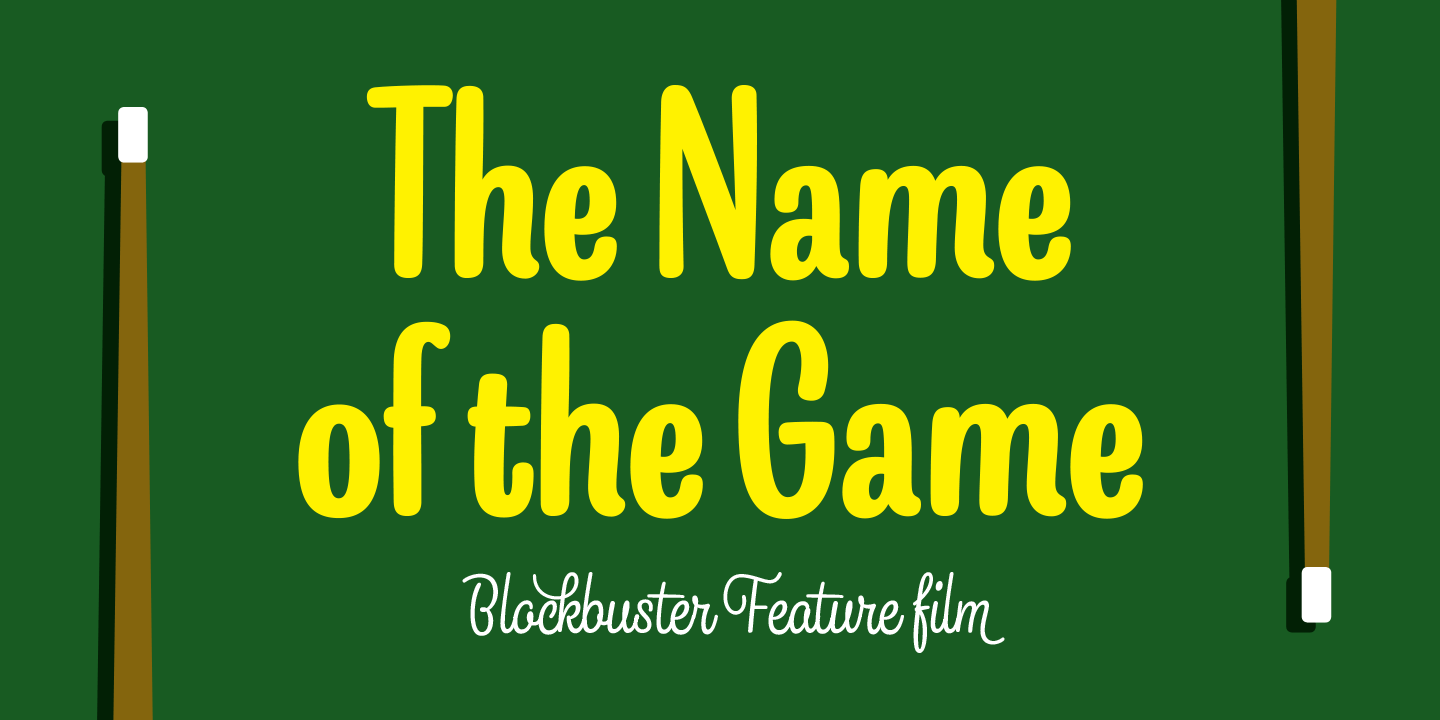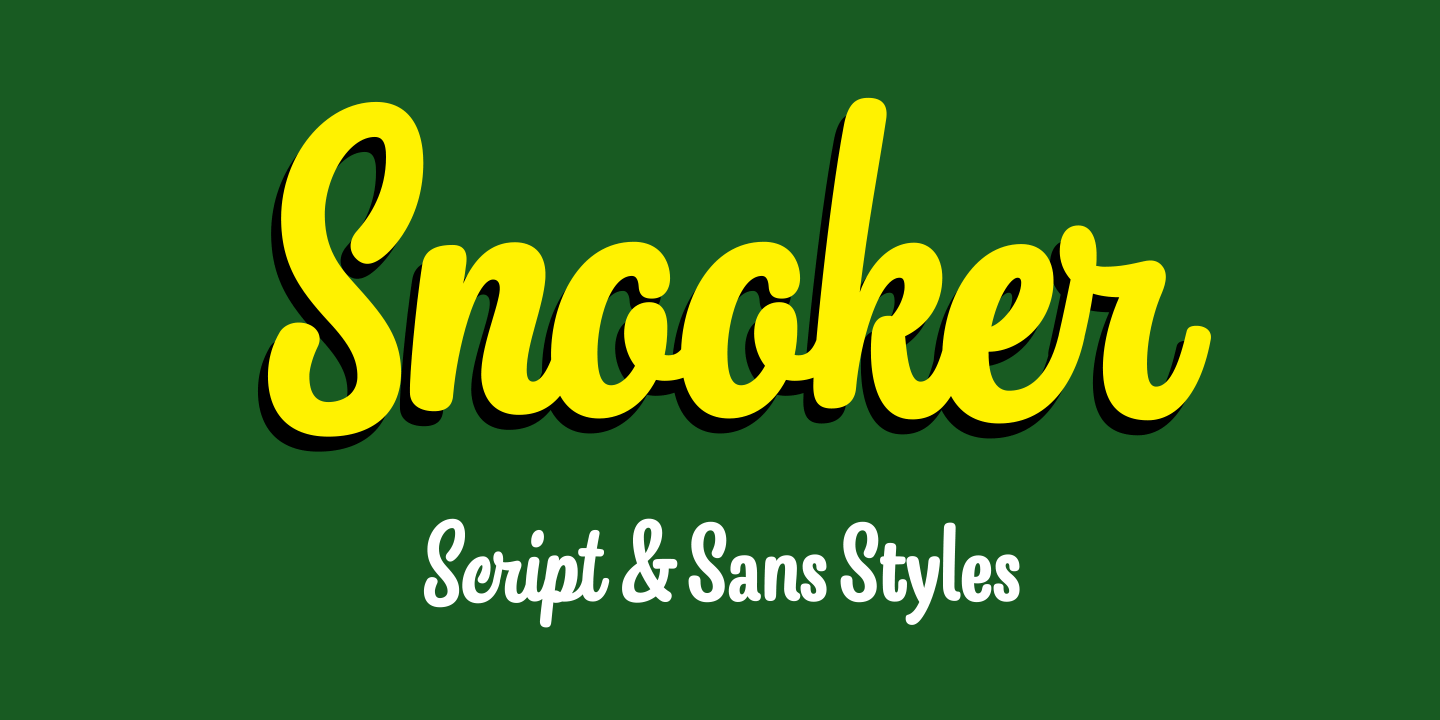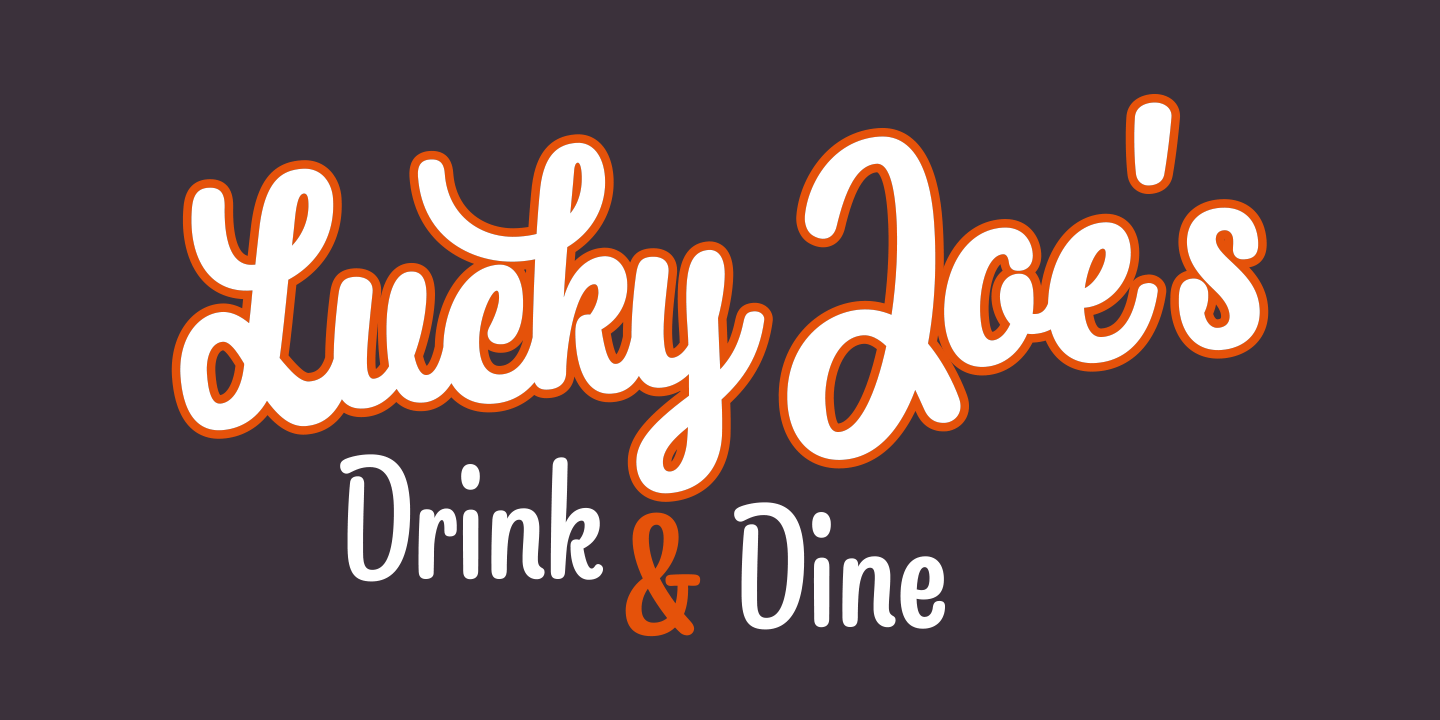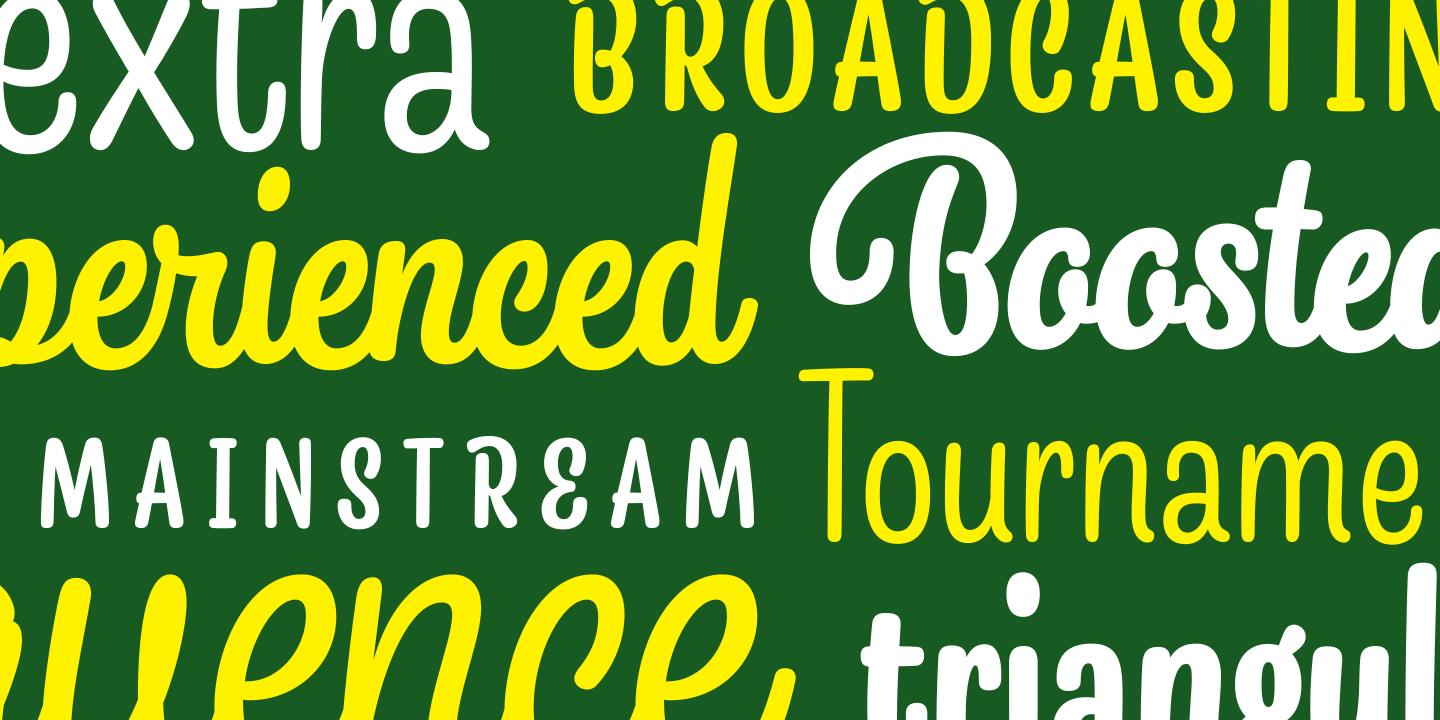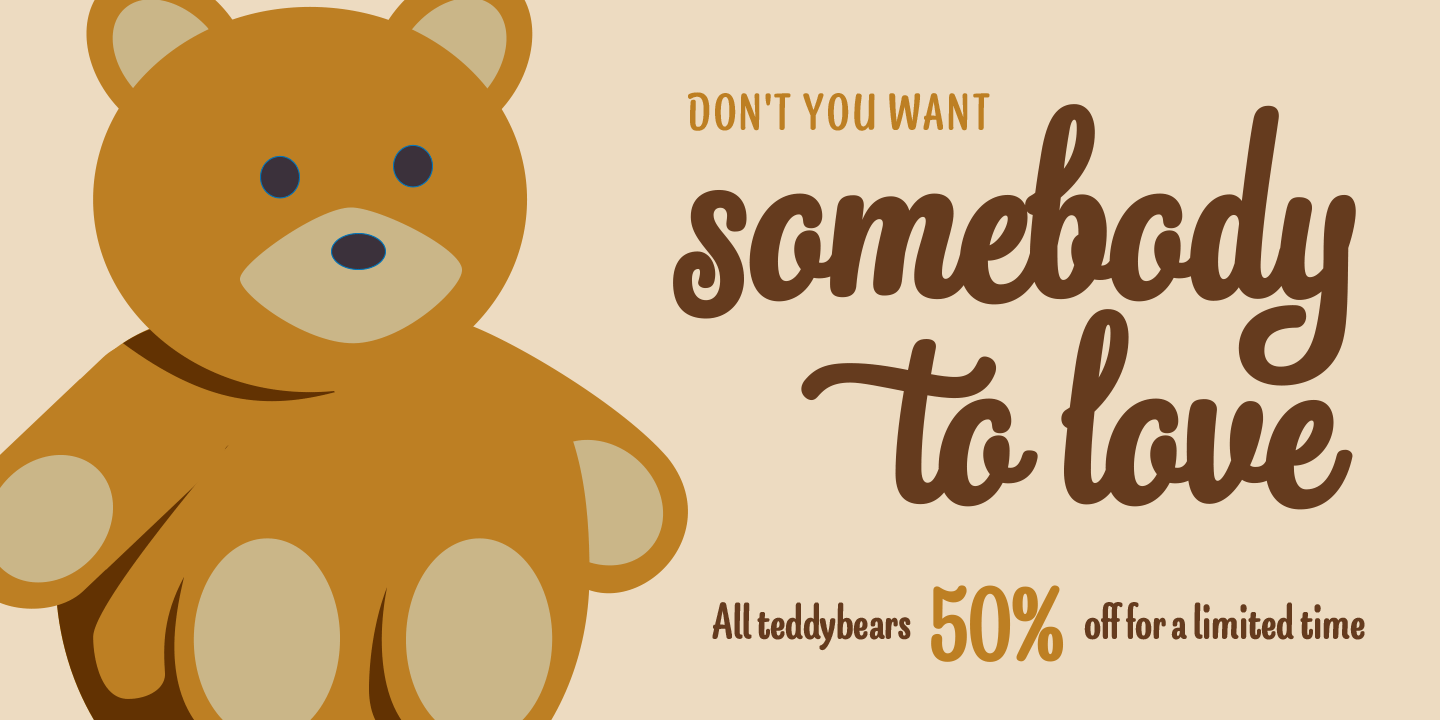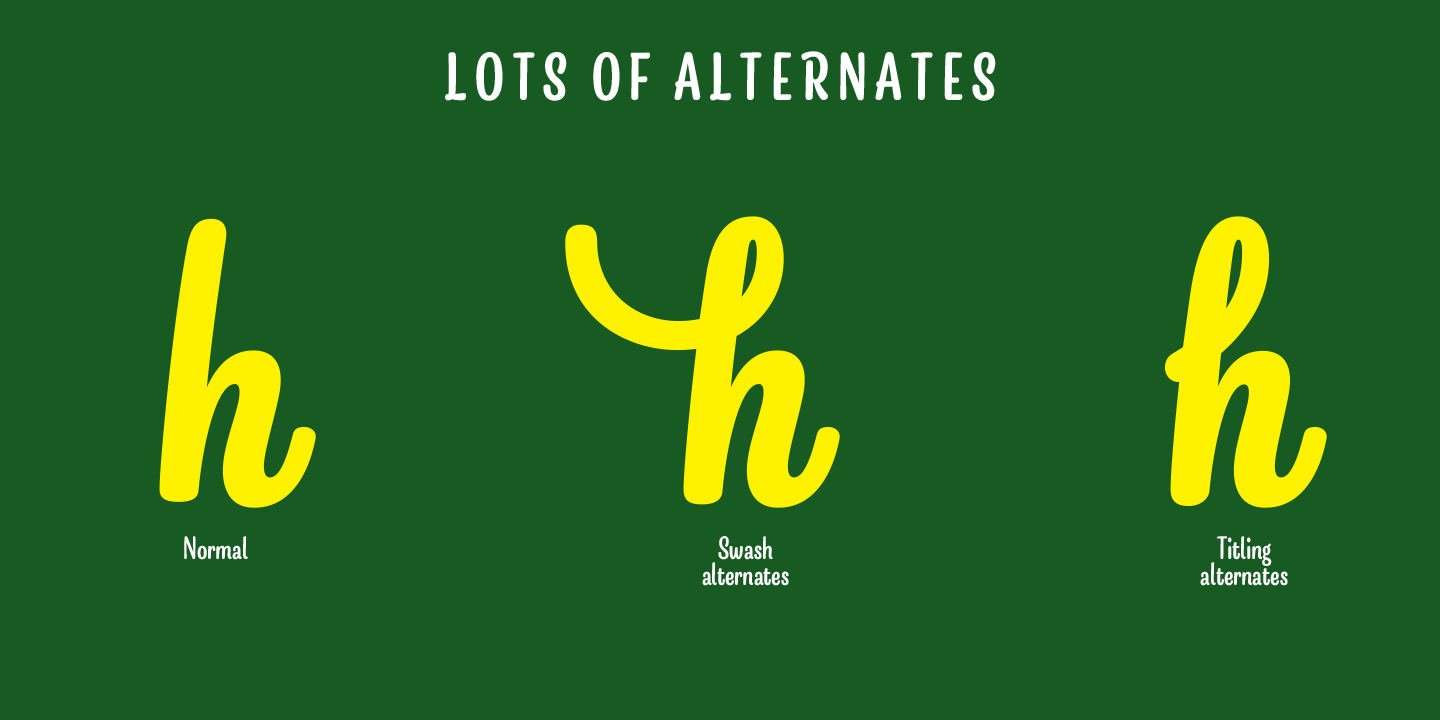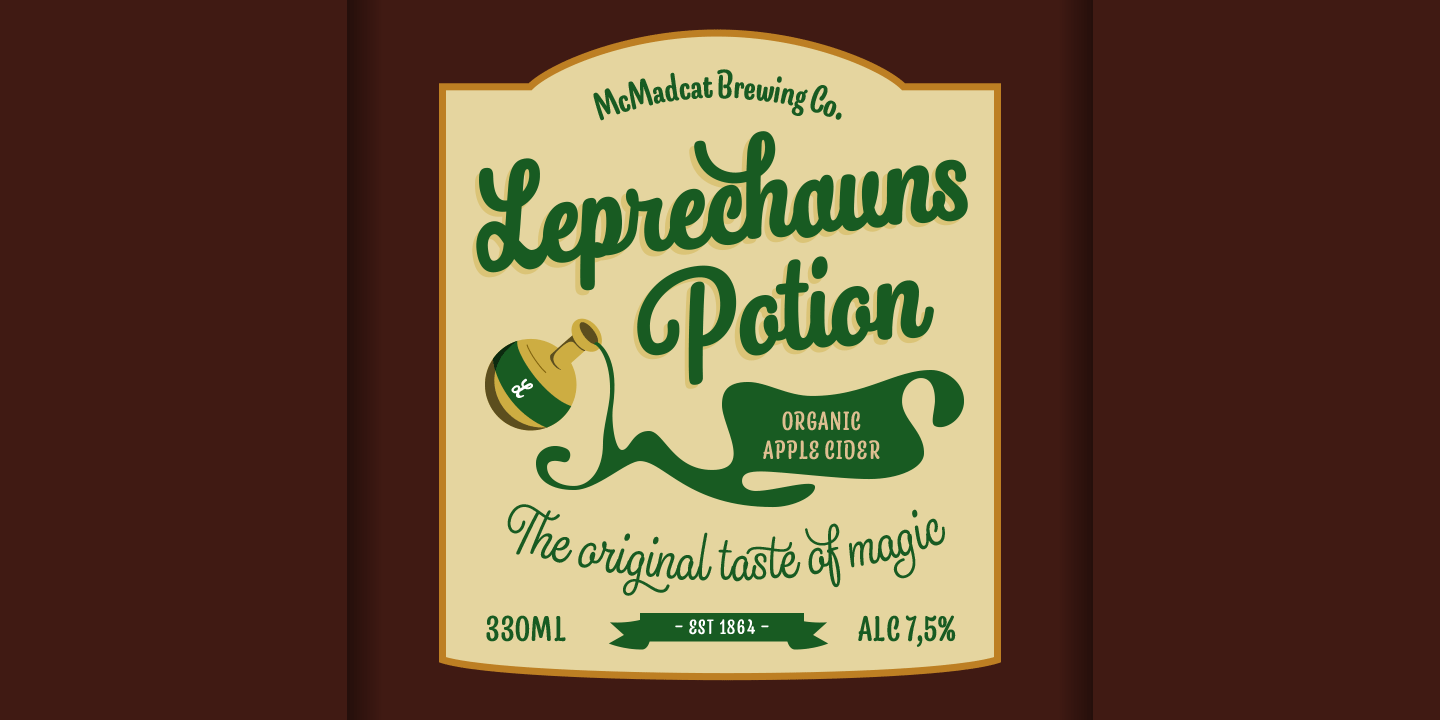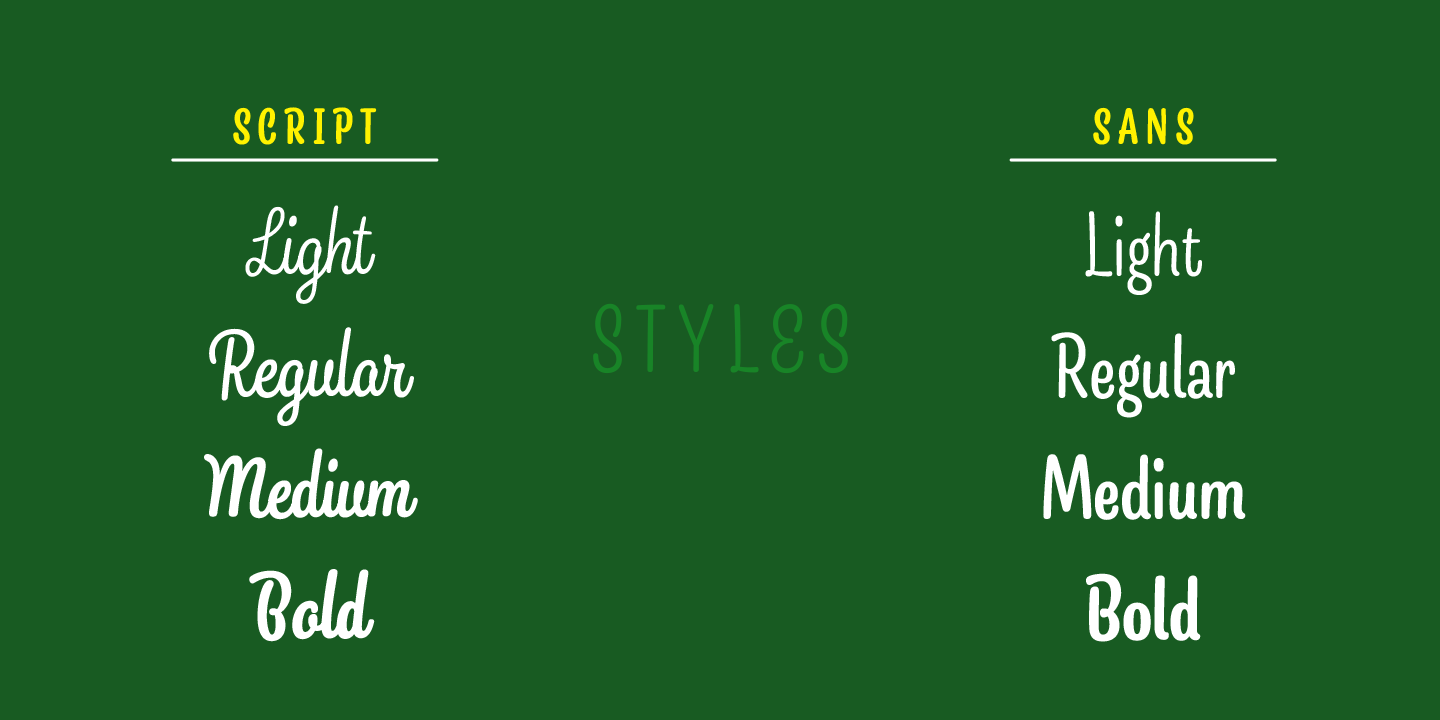
Snooker Family (8 fonts)
There are four weights in both sans and script, from the elegant Extra Light to the attention grabbing Bold weight.
The exceptionally long ascenders and descenders give Snooker it’s distinct personality which helps your design stand out from the crowd.
The script styles are packed with OpenType alternates for customizing your design. The family is perfect for branding, packaging and advertising purposes.